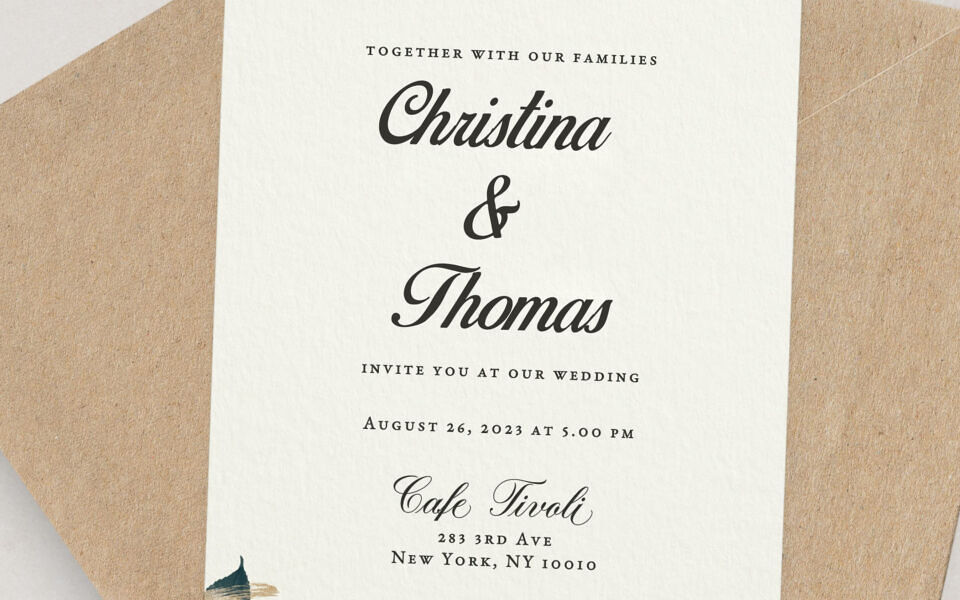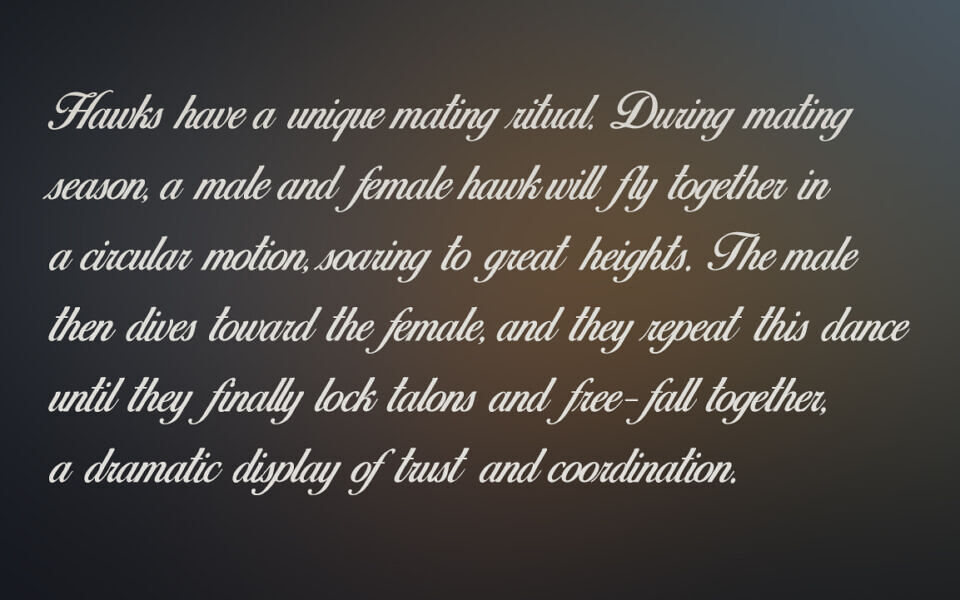
Birds of Paradise, designed by Herofonts, is an elegant script font that exudes sophistication and charm. Its flowing, cursive letterforms feature delicate swirls and graceful flourishes, evoking a sense of timeless beauty.
Perfect for display purposes, this font brings a romantic and whimsical touch to invitations, branding, and creative projects. The smooth, handwritten style offers a refined yet approachable aesthetic, making it ideal for designs that require a blend of formality and artistry.